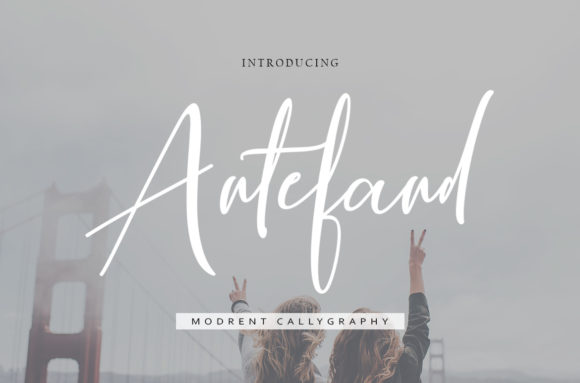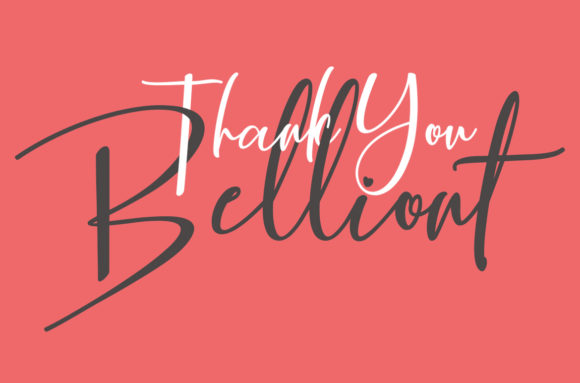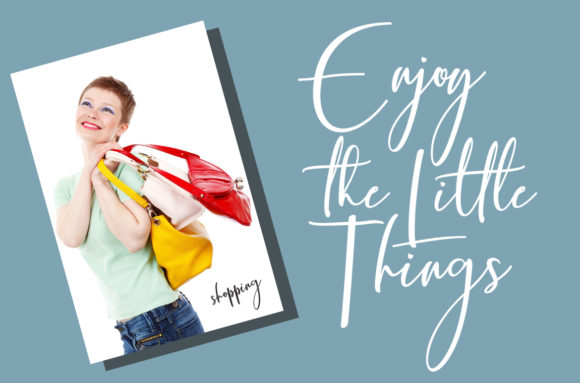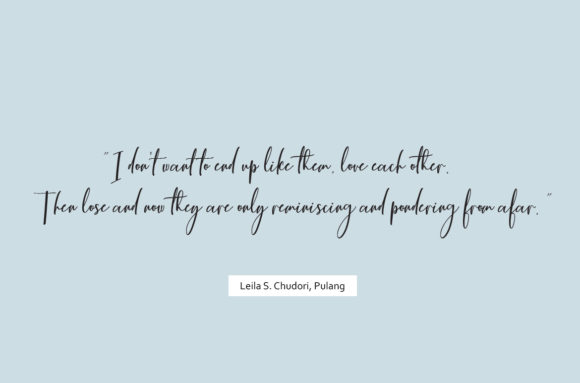
Antefand Font
About Antefand Font
The Antefand is a modern calligraphy font. Its handwritten style is perfect for adding a natural touch to your designs.
It can be used for wedding invites, magazines, mugs, business cards, quotes, posters, and more!